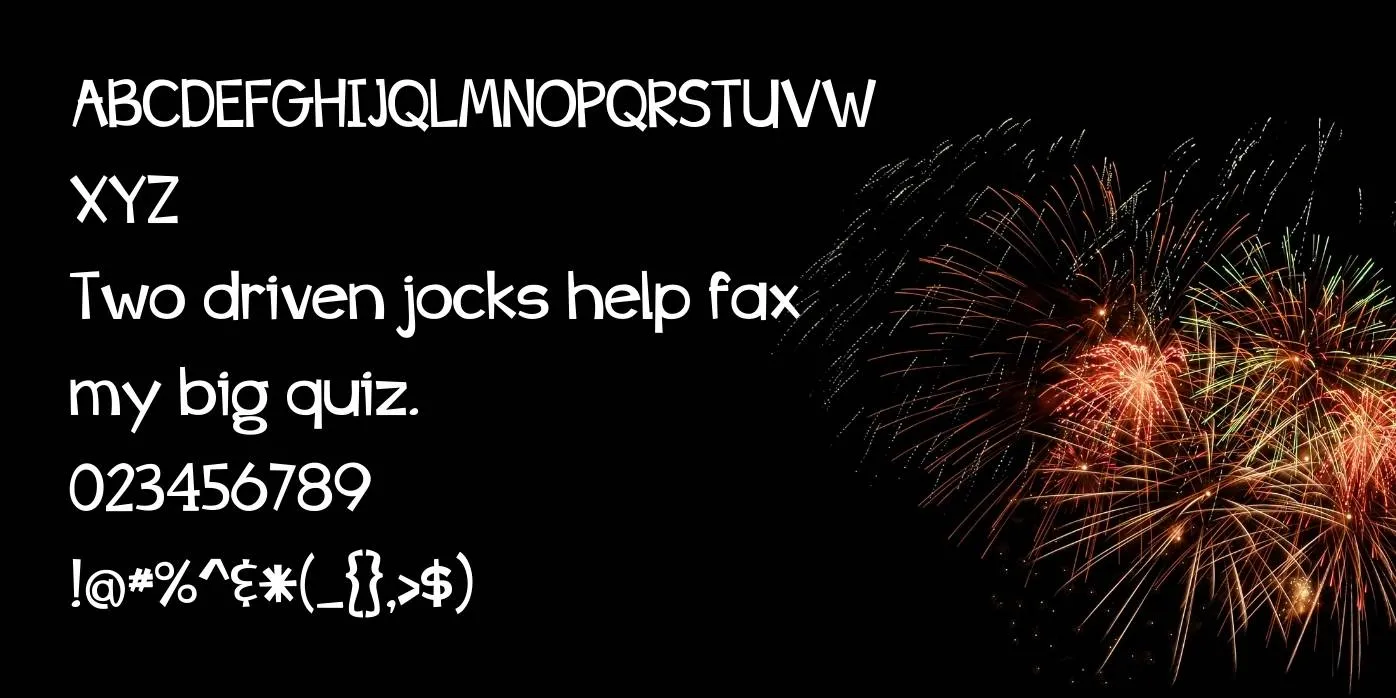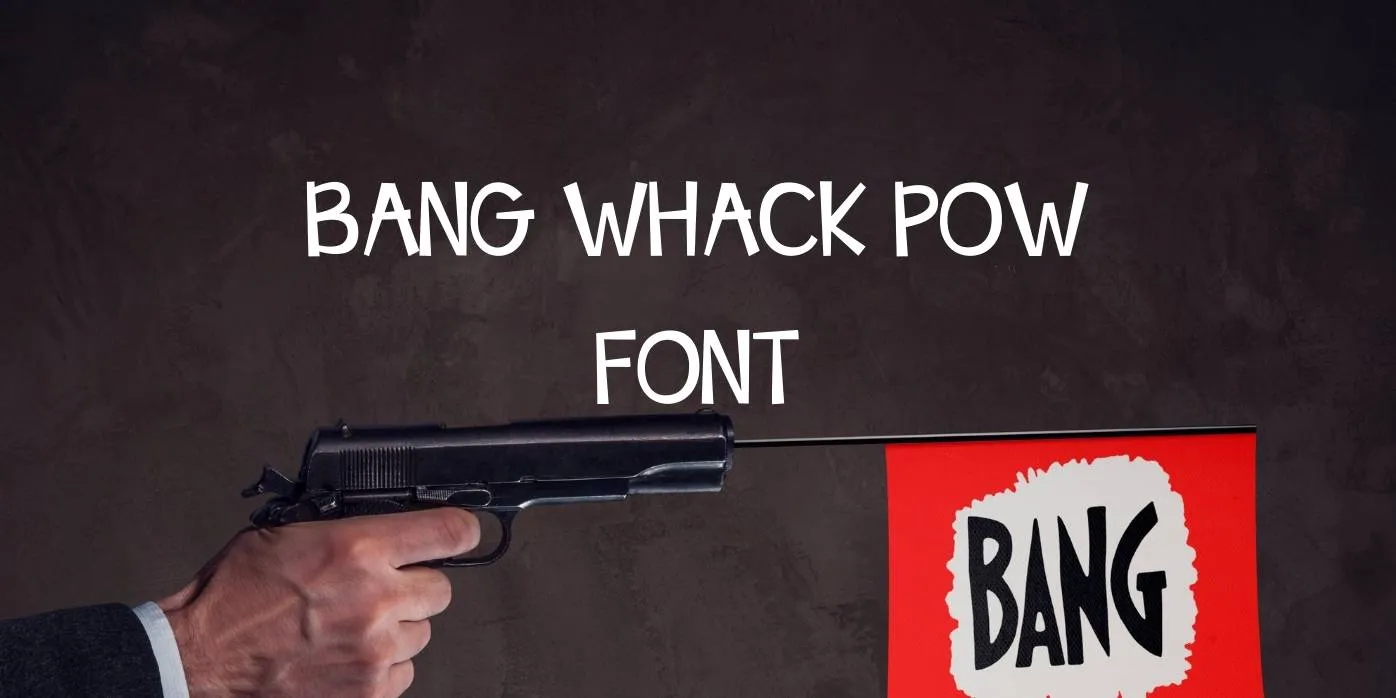
Bang Whack Pow Font
Bang Whack Pow Font is one of the stylish and Stunning typefaces. It belongs to a  Fancy Font Family Typefaces. The designer of this pretty cool and unique shape font is Brittney Murphy Design. It has TTF features and is available for personal use only.
It has many downloaders that mean it is very useful for many design projects. The font family has many stunning styles with Regular weight. It has the ability to support many international languages. This cartoon shape font is very useful for storybook covers.
This font has many keep-on features includes Uppercase and Lowercase Letters, Particular symbols, characters, Numbers, Numeral Symbols, and many other special characters also. It also has Truetype features and is free for personal utilization only.